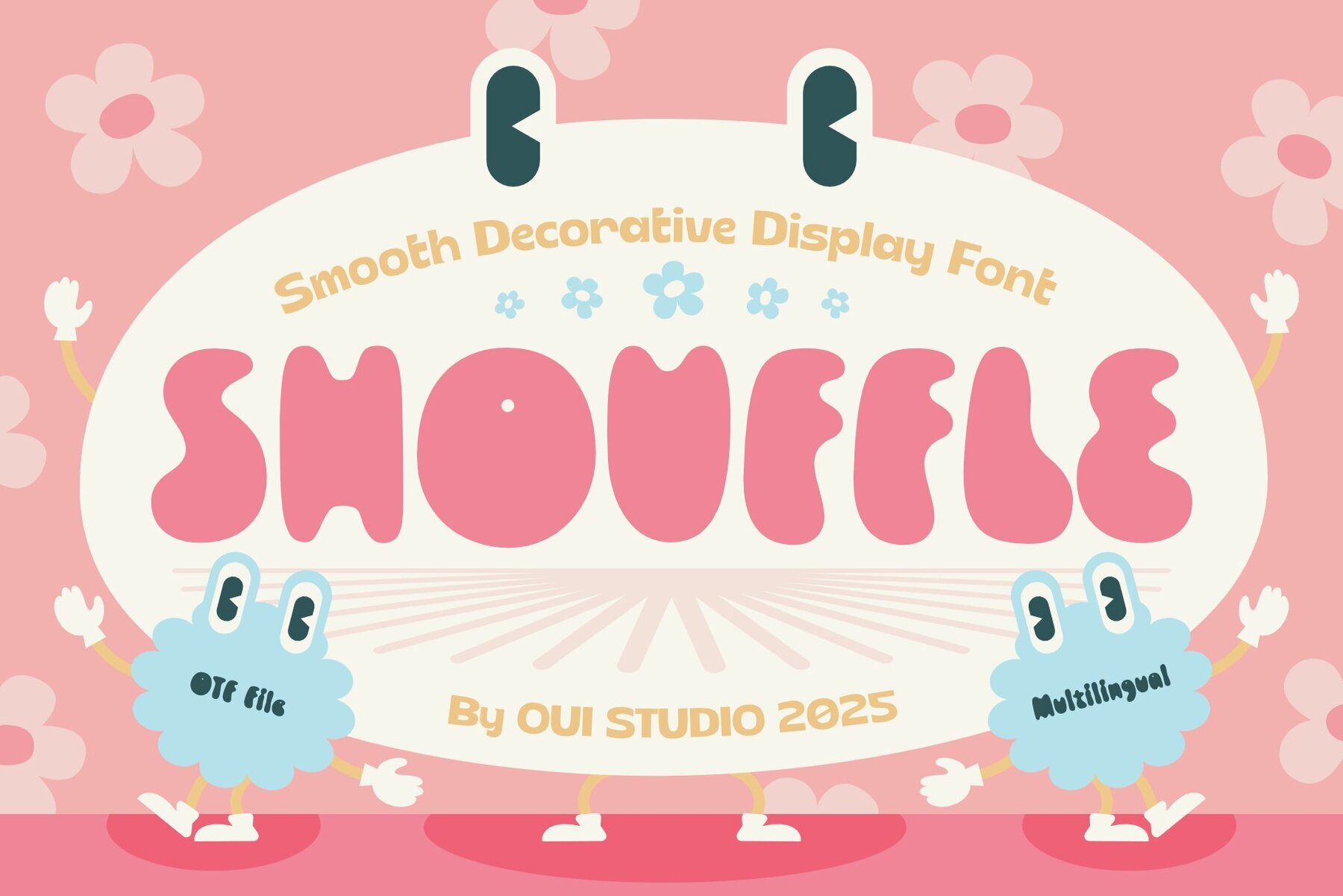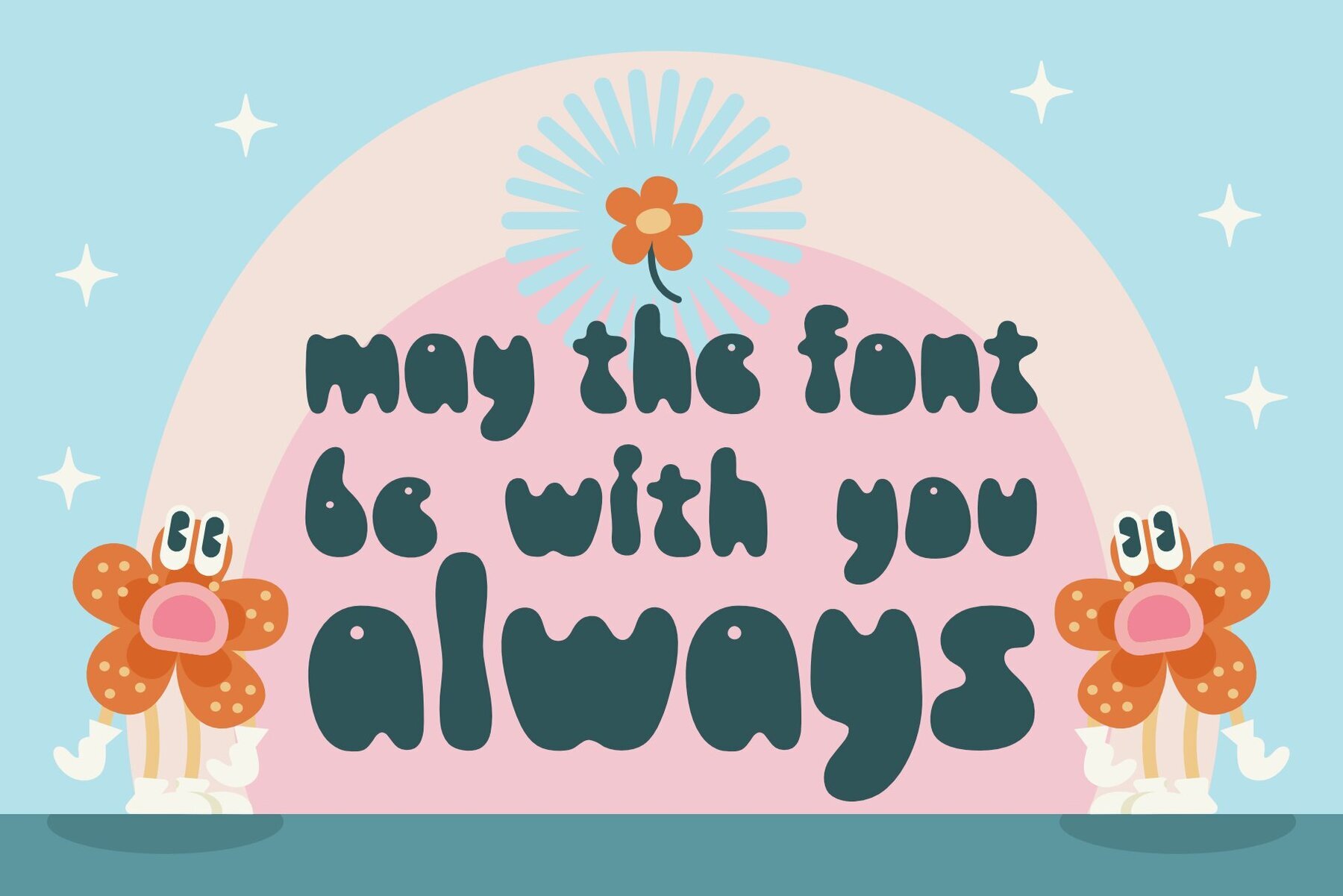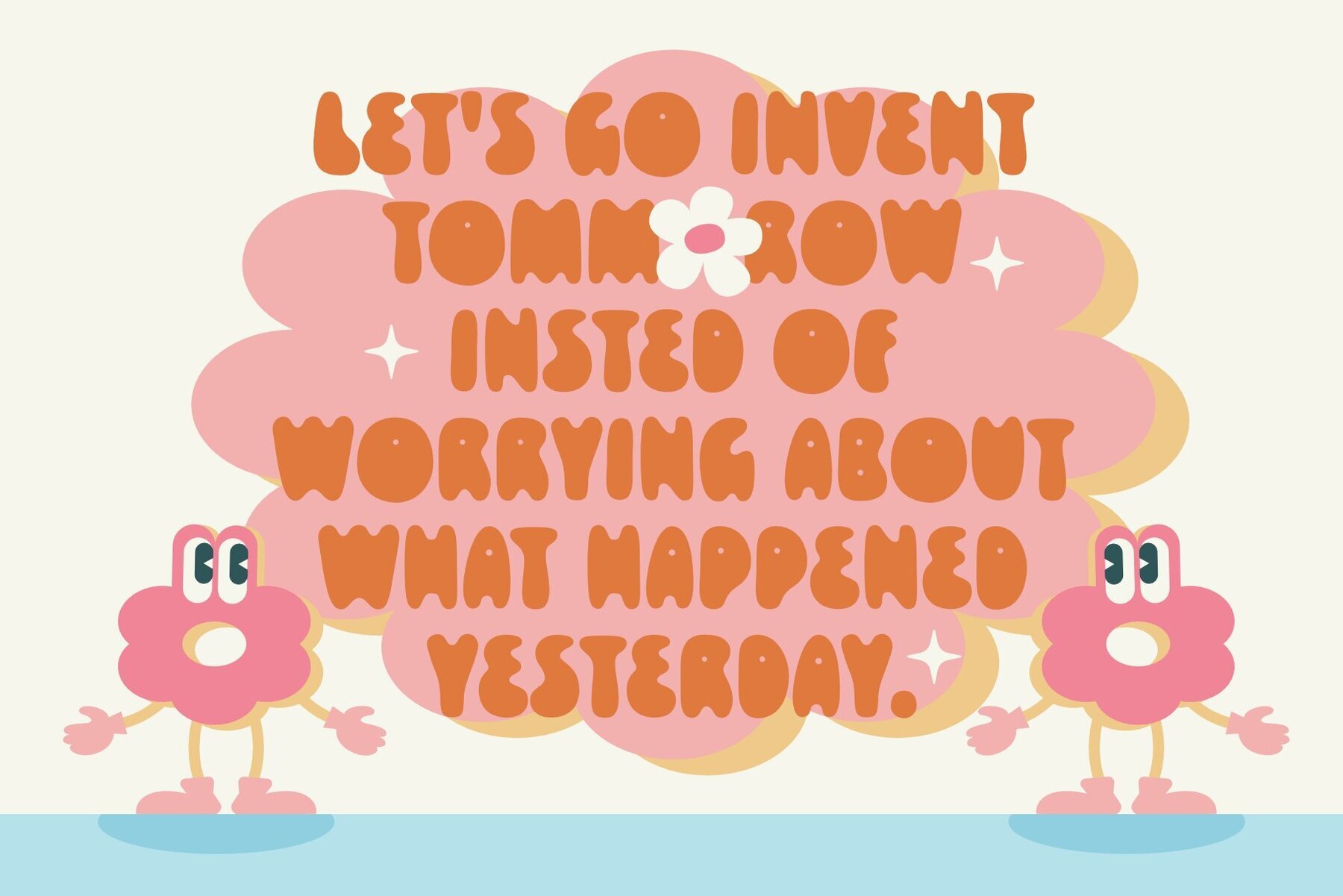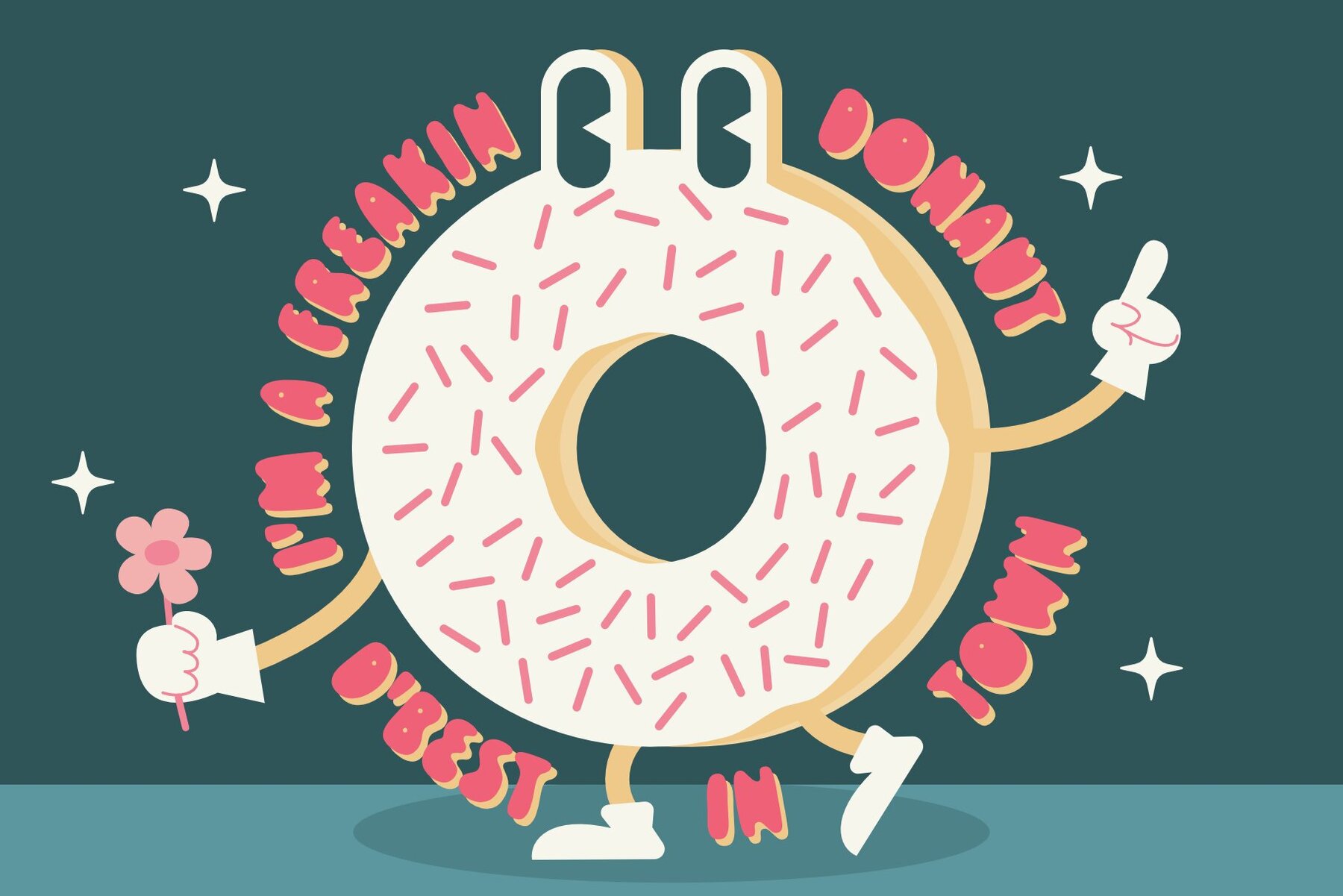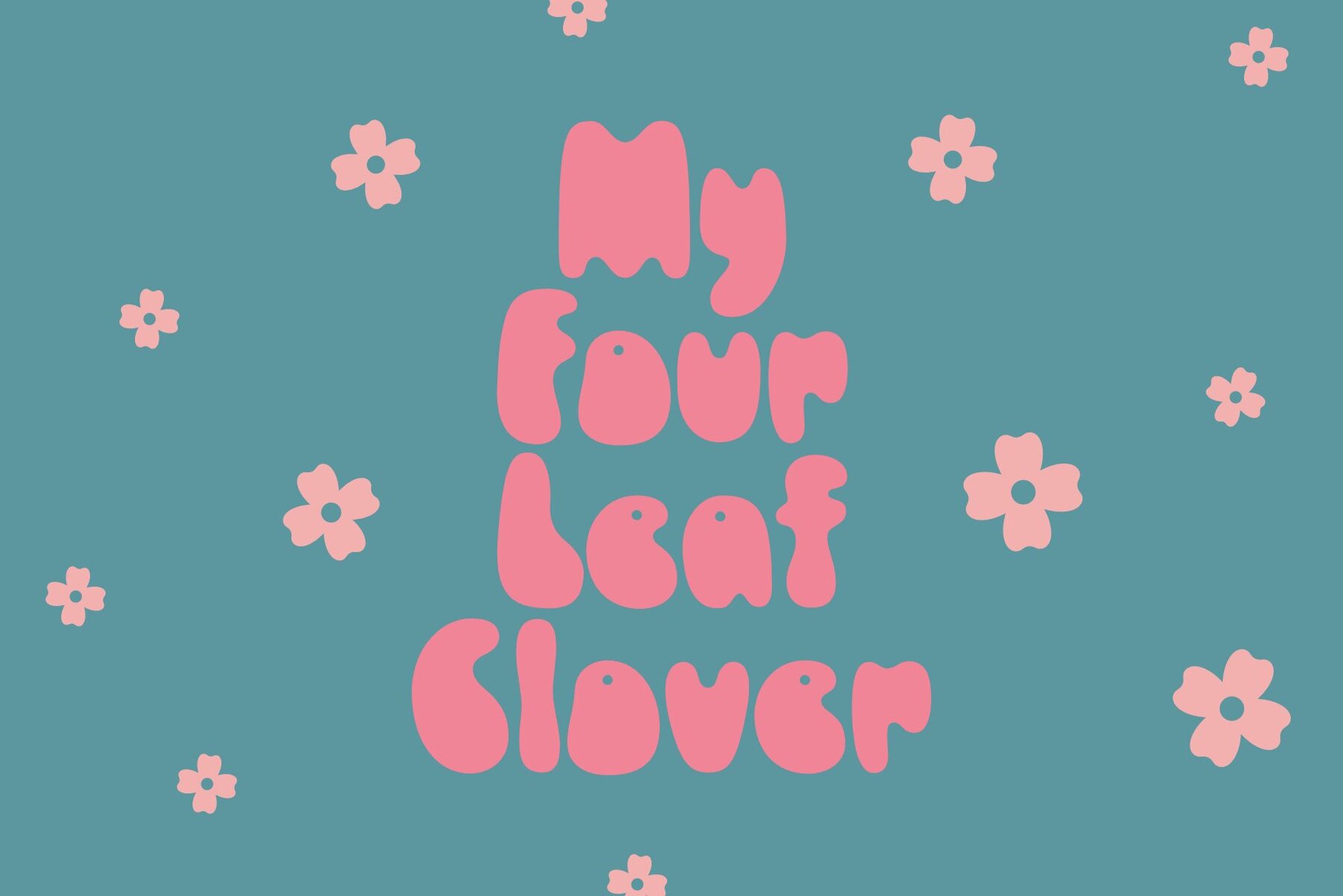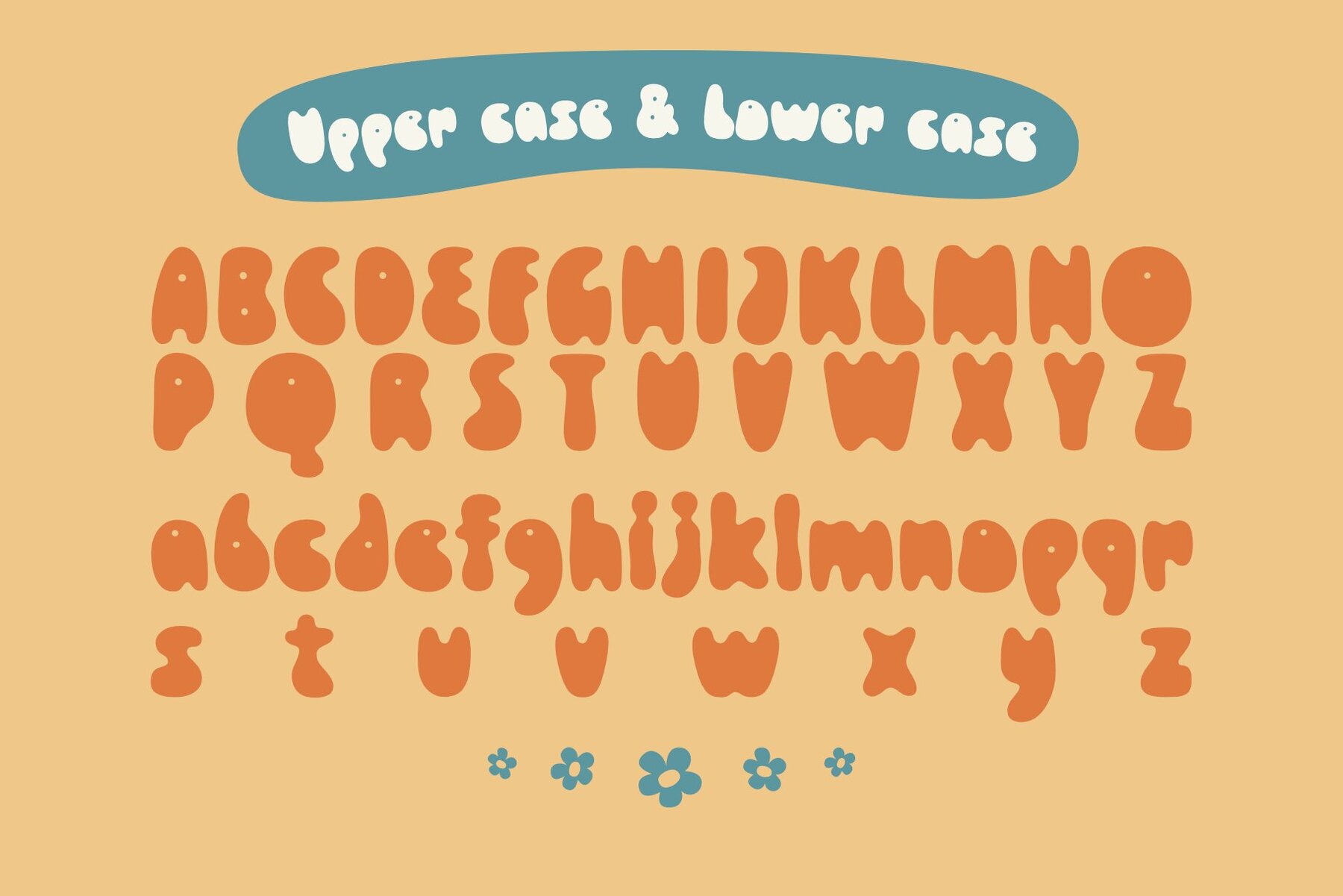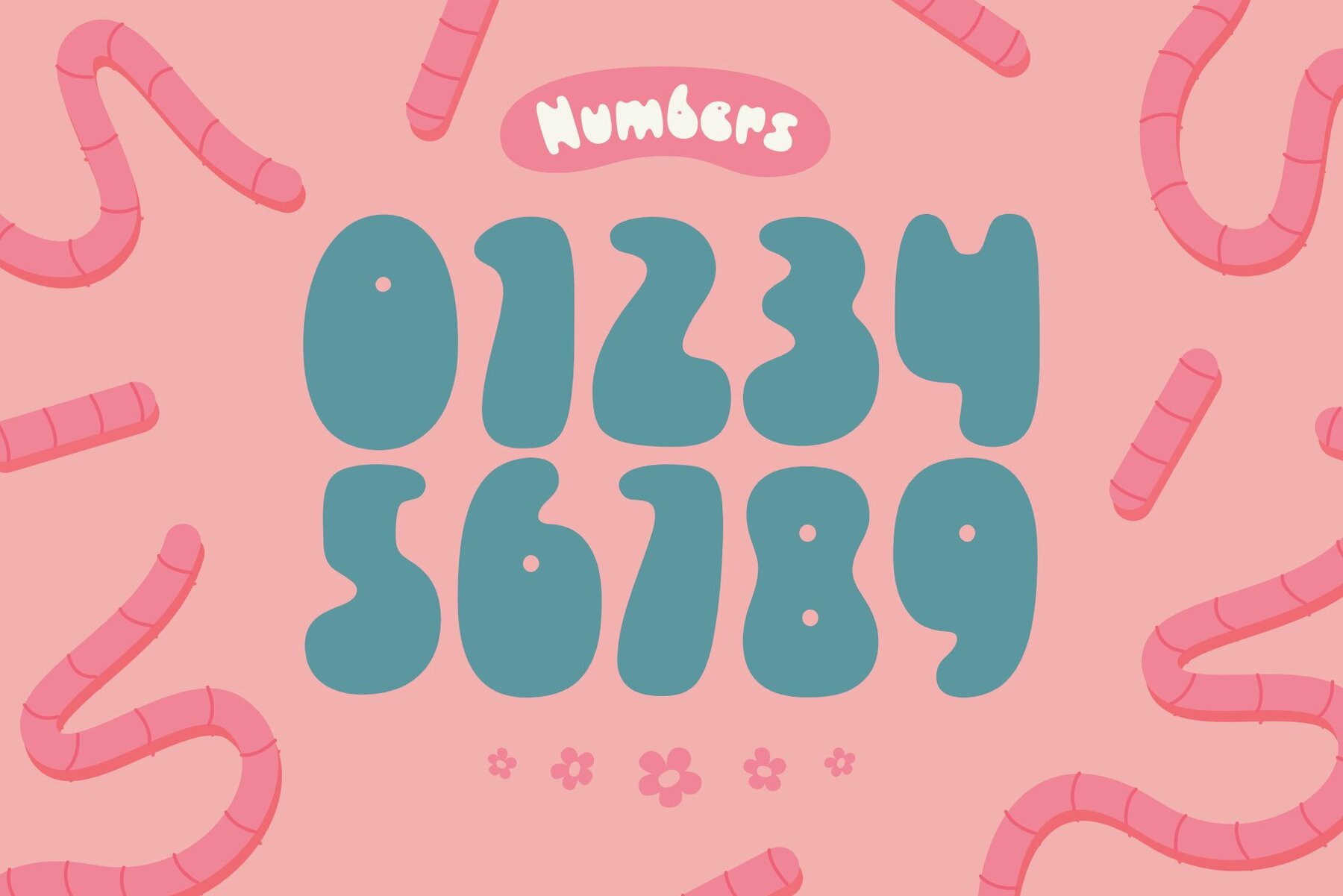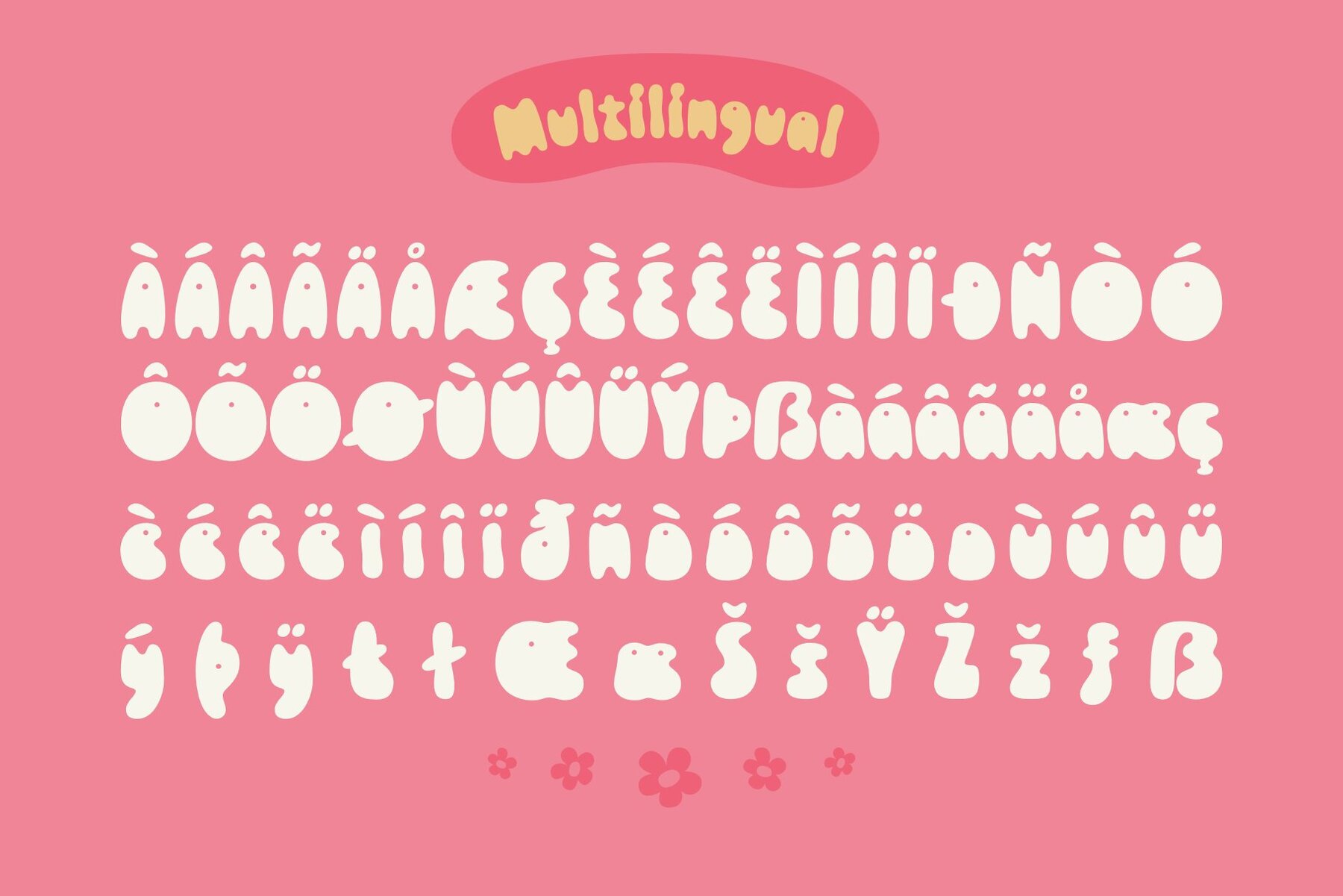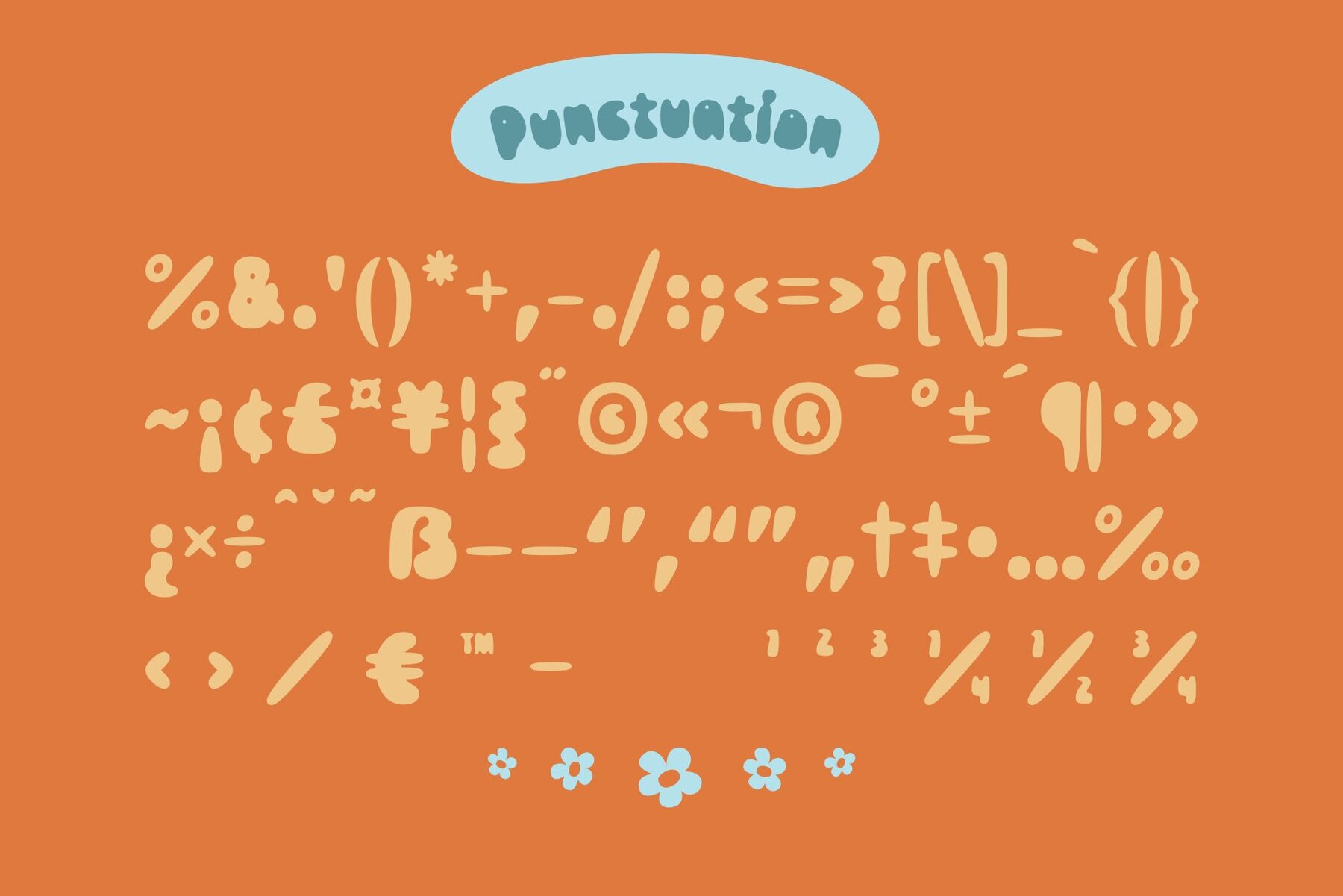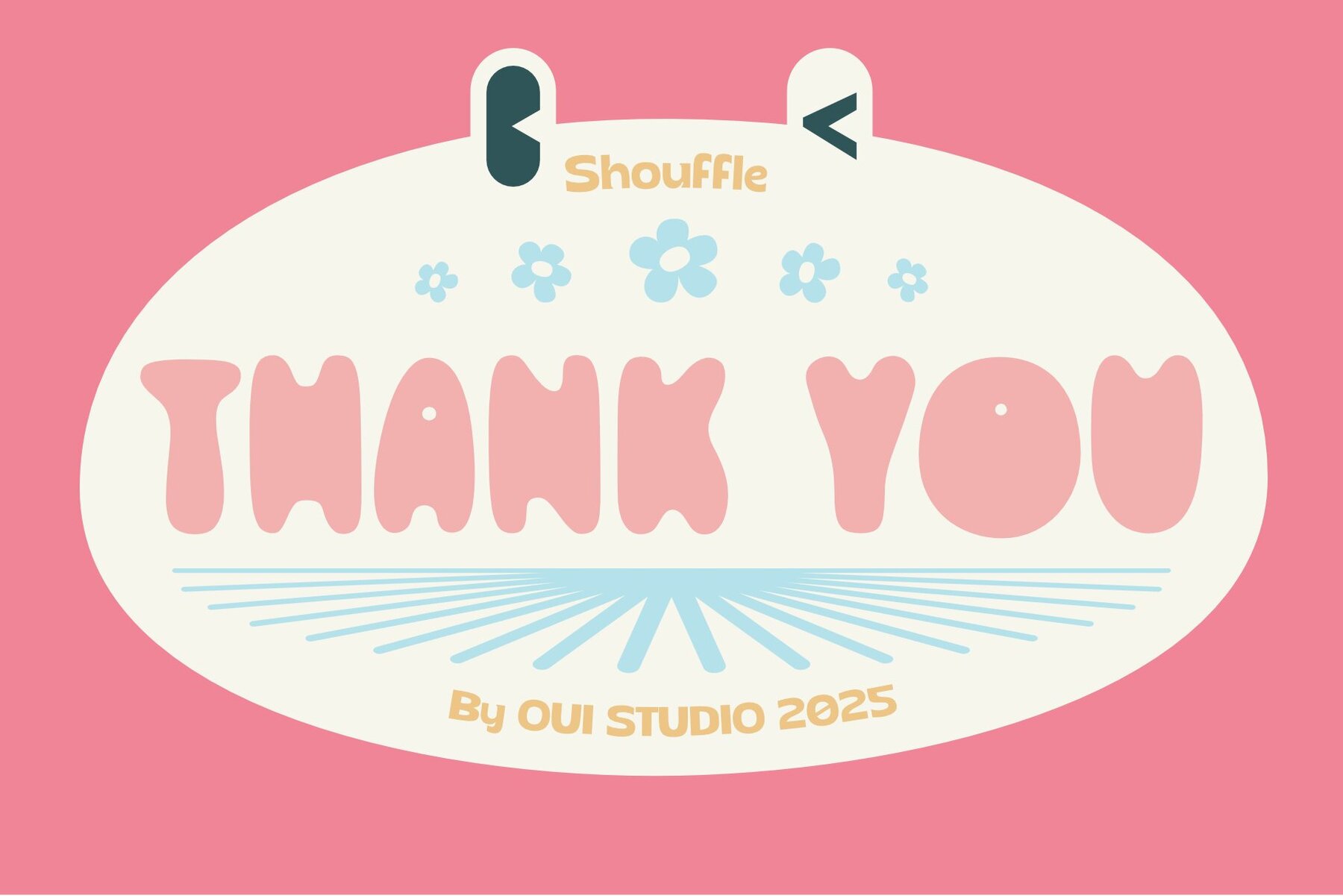
Shouffle Font
Shouffle
Shouffle stands out as a display typeface that merges modern sophistication with an artistic touch. Its fluid curves and sharp edges create a dynamic yet harmonious look, offering elegance with a playful twist. This font is perfect for creative branding, bold headlines, and posters that demand attention. Each letter in Shouffle is crafted with nuanced strokes and innovative details, ensuring every character leaves a lasting impression. Its versatility shines in various visual projects, from contemporary logos to sophisticated editorial layouts. Shouffle is your go-to choice for projects that need to convey refined modernity and make a stylish impact.Introducing Shouffle: A Display Typeface of Distinctive Elegance